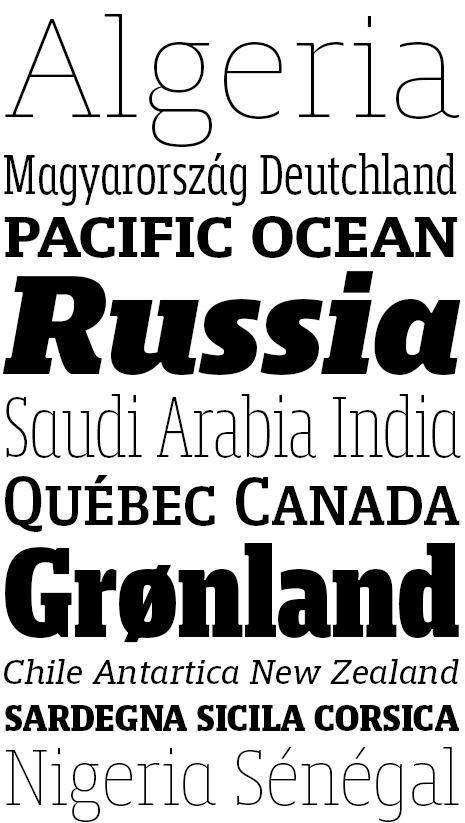
French type designer (b. 1977), who studied graphic design in Paris as well as calligraphy and typography at the Scriptorium de Toulouse. From 1999 to 2001, he worked as a type designer in a packaging design agency. He collaborated with Ladislas Mandel on Renaissance writings. From 2001 to 2004, he lived in South Asia. His work was discussed by Yves Peters. Link at ENSAE, France. FontShop link. An online quarrel between Xavier and John Downer. He designed the following fonts: - The aesthetic text font Humanix, 1998.
- The beautifully balanced family FF Reminga (2001).
- The swinging FF Jambono (2002).
- The fifties font FF Tartine Script (2002).
- The elegant modern family FF Angkoon (2003, winner of an award at TDC2 2004).
- The slab serif family FF Absara (2004). This face won an award at the TDC2 2005 type competition. It was followed in 2005 by FF Absara Sans and in 2007 by FF Absara Headline.
- FF Parango (2001).
- The 12-weight family Spotka (2003, T-26), created in cooperation with Silos Dilworth.
- Meteor (2003, T-26).
- FF Megano (2005, FontShop), a humanist sans in six weights and a very eye-catching "g".
- Zingha (2005, Font Bureau), an all-round serif family.
- Vista Sans (2005, Emigre): this won an award at TDC2 2006.
- Two Khmer fonts commissioned in 2003 and 2004 for Cambodia: ApsaraLight, ApsaraRegular, ApsaraMedium, ApsaraBold, ChriengCKS-Regular, ChriengCKS-RegularAlternate (done with the help of Michel Antelme). Reencodings include Banthem Aksar Chrieng, Chrieng Siksacakr, Hora Chrieng, Mo.Kha.Sa.Chrieng.
- FF Sanuk (2006, FontFont), a 27-style family rooted in architectural drawing letters.
- Malaga (2007, Emigre), a 32-weight serif family with a distinctive flat-topped lower case a.
- Vista Slab (2008, 108 styles): an Emigre family.
- FF Masala (2009, sans).
- FF Yoga Sans and Serif (2009), a type system conceived for newspapers and magazines. The FontShop ad: FF Yoga, with its sturdy serifs is a good choice for body text, but it also serves as an original headline face with its subtly chiseled counters. The face mixes the dynamic tension of angular cuts with the balanced rhythm and elegant curves of Garalde typefaces. FF Yoga Sans is a contemporary alternative to Gill Sans and a sober companion to the serif FF Yoga.
- Mislab (2013, Typofonderie). A slightly cursive and fully humanistic slab family in 32 styles and three widths.
Xavier Dupré